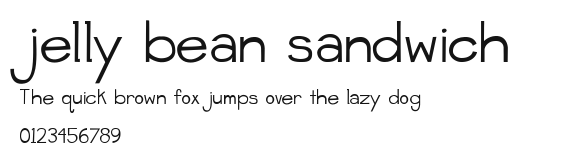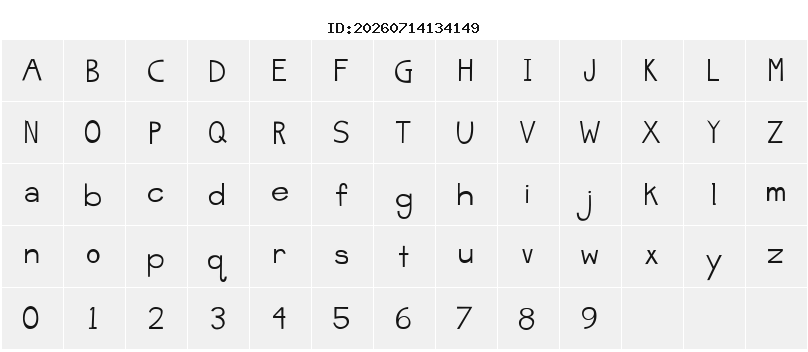
jelly bean sandwich .ttf
• Font Name: jelly bean sandwich
• Designer: Brittney Murphy
About jelly bean sandwich .ttf
jelly bean sandwich .ttf is a modern, elegant sans-serif font designed for ultimate readability and visual harmony. Perfect for branding, headlines, web design, and print materials.